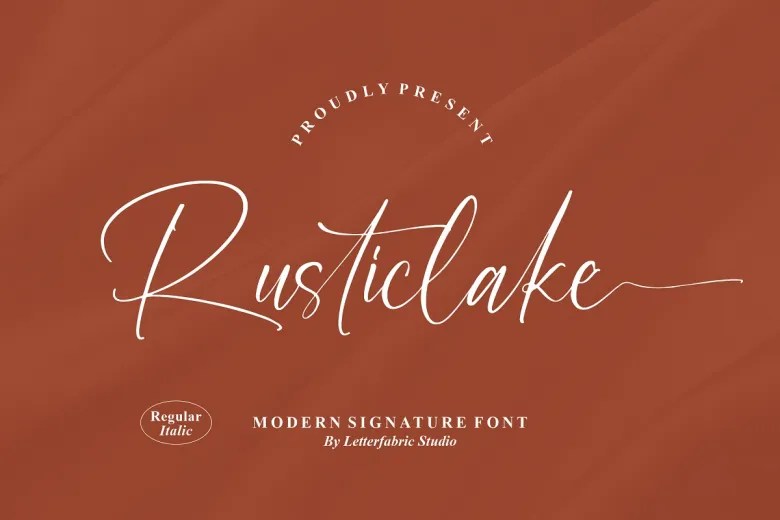
Rusticlake Font
Rusticlake is an open-flowing script trademark font designed to bring a touch of elegance to your designs. Ideal for packaging, flyers, invitations, exhibition posters, and mockups, Rusticlake offers a beautiful yet balanced style that enhances any project.